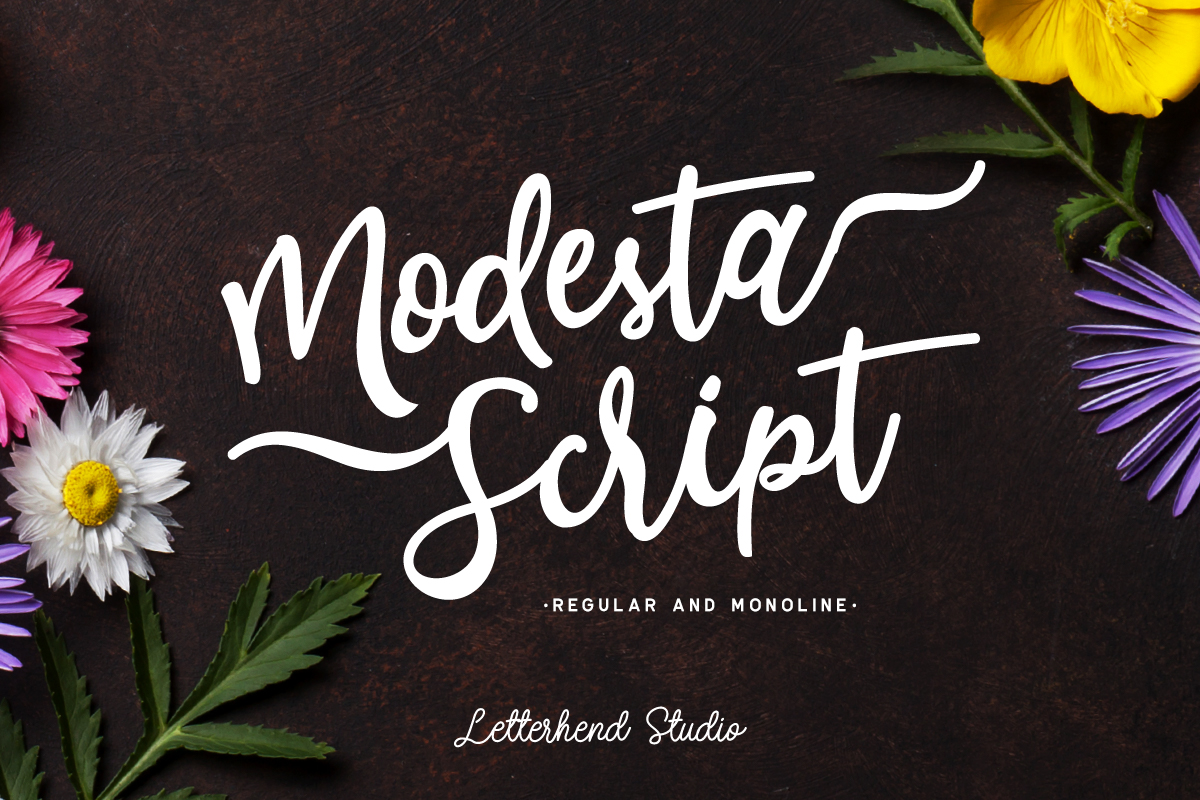
Modesta Script Font Duo
This elegant and understated typeface duo is perfect for minimalist wedding invitations, boutique fashion branding, refined beauty salon logos, modest luxury packaging, contemporary art galleries, sophisticated stationery design, upscale personal branding, elegant lifestyle blogs, and refined hospitality venues that require a graceful, sophisticated aesthetic.
Modesta Script Font Duo brings excitement to design projects with its refined simplicity and elegant restraint that captures the essence of sophisticated modesty and timeless grace. The font duo features harmoniously paired script and sans-serif letterforms with subtle flourishes that create understated luxury while maintaining exceptional readability. Its modest sophistication and refined presence make it an exceptional choice for brands that want to communicate quiet elegance, thoughtful design, and refined taste in their sophisticated communications.
Modesta Script Font Duo family includes complementary elegant styles: Script Regular, Script Bold, Sans Light, Sans Regular, Sans Medium, Sans Bold, and Ornamental versions. Each style within the duo maintains perfect visual harmony while providing designers with complete flexibility for creating cohesive sophisticated branding systems. The family also features refined ornaments, elegant decorative elements, tasteful ligatures, and understated symbols that enhance the overall graceful aesthetic.
The font duo's elegant excellence includes precision-crafted character relationships, balanced visual weight distribution, and superior reproduction quality that honors traditional calligraphic principles while embracing contemporary minimalism. Whether you're designing for luxury lifestyle brands, refined hospitality services, or sophisticated personal projects, this font duo delivers the understated elegance that resonates with audiences seeking authentic refinement and thoughtful design.